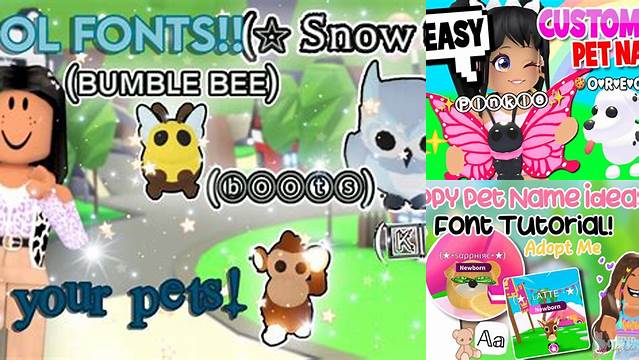
Cool Adopt Me Fonts For Roblox: A Guide For Players
Hey Roblox fans and Adopt Me enthusiasts! Ever wondered how to jazz up your game with some awesome fonts that perfectly capture the Adopt Me vibe? Well, you've come to the right place! Choosing the right font can make a huge difference in your Roblox creations, especially when you're aiming for that cute and playful aesthetic. In this guide, we'll dive into a treasure trove of Adopt Me fonts, explore why they matter, and show you how to use them to create a memorable experience. So, let’s get started and make your Roblox world even more amazing!
1. Understanding the Importance of Fonts in Roblox Games
Fonts, guys, are like the voice of your game. They communicate personality, style, and even the overall mood. Think about it: a scary horror game wouldn't use a bubbly, cartoonish font, right? Similarly, for a game as adorable as Adopt Me, the right font can amplify that cuteness factor tenfold. When you choose a great Adopt Me font, you're not just picking letters; you're selecting a visual element that can engage players, make text more readable, and add a professional touch to your game. In the world of Roblox, where customization is king, fonts are a key ingredient in crafting a unique and immersive experience. So, let's explore how we can make your game visually appealing with the perfect font!
2. Key Characteristics of Adopt Me Style Fonts
What exactly makes a font feel like it belongs in Adopt Me? It’s all about capturing that playful, friendly, and inviting vibe. Typically, Adopt Me style fonts are characterized by their rounded edges, soft curves, and a general sense of whimsy. They often have a handcrafted feel, as if they were drawn with love and care. Think bubbly letters, slightly irregular shapes, and a touch of childlike charm. These fonts avoid sharp angles and harsh lines, opting instead for a softer, more approachable look. The goal is to create text that feels welcoming and fun, perfectly complementing the game's adorable animals and cozy environments. When choosing a font, ask yourself: Does it make you smile? Does it feel like a hug in letter form? If the answer is yes, you might just have found your perfect Adopt Me font!
3. Top 5 Fonts That Perfectly Capture the Adopt Me Aesthetic
Alright, let's get to the good stuff! Here are my top 5 picks for fonts that nail that Adopt Me aesthetic, and trust me, they're awesome:
- Bubblegum Sans: This font is like a bouncy castle in text form. It's rounded, playful, and oh-so-cute. Perfect for dialogues and announcements!
- Luckiest Guy: With its bold, friendly letters, Luckiest Guy screams fun. It’s super readable and adds a touch of retro charm.
- Cherry Cream Soda: Imagine a sweet treat in font form. This one’s bubbly, quirky, and full of personality. Great for titles and headings!
- Patrick Hand: Named after the lovable starfish, this font has a handwritten feel that’s both charming and unique. It adds a personal touch to your game.
- Cute Font: Sometimes, the name says it all! This font is simply adorable, with its soft lines and playful curves. Perfect for anything and everything in Adopt Me.
These fonts are sure to bring your Roblox game to the next level of cuteness!
5. Using Fonts to Enhance UI Elements in Adopt Me
Using the right fonts can really elevate your UI elements in Adopt Me. Think about how your game's user interface (UI) contributes to the overall player experience. Clear, readable text is essential, but the font's style also plays a significant role. For instance, a bubbly font for chat bubbles can enhance the playful atmosphere, while a slightly bolder font for important notifications can grab players' attention. When designing your UI, consider the context of each text element. Use different fonts for headings, body text, and button labels to create a visual hierarchy. A consistent font choice throughout your UI will give your game a polished and professional look. Experiment with different sizes, colors, and styles to make your text stand out and match the game's aesthetic.
6. Font Pairing: Combining Different Fonts for Visual Appeal
Font pairing, guys, is like matchmaking for text! It's about finding the perfect combination of fonts that complement each other and create a harmonious visual experience in your Adopt Me game. Think of it as finding the peanut butter to your jelly. A general rule of thumb is to pair a display font (something bold and attention-grabbing) with a more readable sans-serif font for body text. For example, you might use “Cherry Cream Soda” for your game titles and “Patrick Hand” for dialogues. Avoid using too many different fonts, as it can make your UI look cluttered and confusing. Stick to two or three fonts max. Also, consider the contrast between the fonts. A bold, heavy font paired with a light, airy font can create a nice visual balance. Experiment and see what combinations feel right for your game's unique style!
7. Best Practices for Font Size and Readability
Readability, guys, is key! No matter how cute your font is, if players can't read it easily, it's not doing its job in Adopt Me. Font size plays a huge role here. Make sure your text is large enough to be seen clearly on different devices, but not so large that it becomes overwhelming. Test your game on various screens to ensure readability. Also, consider the contrast between your text and the background. Light text on a dark background or vice versa usually works best. Avoid using colors that are too similar, as this can strain the eyes. Another tip is to use a consistent font size for similar elements throughout your game. This creates a sense of visual consistency and makes it easier for players to navigate your UI. Remember, the goal is to make your text as accessible and enjoyable as possible!
8. Free vs. Premium Fonts: Which Option is Right for You?
When choosing fonts for your Adopt Me game, you’ll often encounter the age-old question: free or premium? Both options have their pros and cons, so let's break it down. Free fonts are awesome because, well, they're free! There are tons of great free fonts out there, and they're perfect for hobbyists or developers on a budget. However, free fonts may have limited character sets or licensing restrictions, so always check the fine print. Premium fonts, on the other hand, usually offer a wider range of styles, weights, and features. They often come with commercial licenses, making them a safer bet for professional projects. Premium fonts also tend to be more unique and polished, giving your game a high-quality feel. Ultimately, the best choice depends on your budget, project scope, and personal preferences. If you're just starting out, free fonts are a great way to experiment. But if you're serious about creating a standout game, investing in premium fonts might be worth it.
9. Licensing Considerations When Using Fonts in Roblox
Okay, let's talk about something super important but often overlooked: font licensing. When you're using fonts in your Adopt Me game, it's crucial to understand the terms of the license. Basically, a font license tells you what you can and can't do with the font. Some fonts are free for personal use but require a commercial license if you're using them in a game you plan to monetize. Other fonts have more restrictive licenses that prohibit embedding them in software or modifying the font files. Using a font without the proper license can lead to legal trouble, so it's always better to be safe than sorry. Before you use a font, check the license agreement. If you're unsure, reach out to the font designer or foundry for clarification. There are also plenty of websites that offer fonts with clear licensing information, making it easier to find the right fonts for your project.
10. Font Styles: Bold, Italic, and Underline in Roblox
Font styles like bold, italic, and underline can be your secret weapons for adding emphasis and visual variety to your text in your Adopt Me game. Bold text is perfect for highlighting key information, making headings pop, or drawing attention to important elements. Italic text can add a touch of elegance or be used for quotes or character thoughts. Underline, while less commonly used in modern UI design, can still be effective for hyperlinks or to emphasize a specific word or phrase. However, a word of caution: don't overdo it with font styles. Too much bolding or italicizing can make your text look cluttered and harder to read. Use these styles sparingly and strategically to enhance readability and create a visual hierarchy. Experiment with different combinations to see what works best for your game's aesthetic.
11. The Psychology of Fonts: How Fonts Affect Player Perception
Did you know that fonts can actually influence how players perceive your Adopt Me game? It's true! Fonts have a psychology all their own. A playful, rounded font can evoke feelings of warmth, friendliness, and fun, making players feel welcome and comfortable. A bolder, more modern font can convey a sense of excitement and innovation. Even the color of your text can impact player perception. Bright, vibrant colors can energize players, while softer, pastel shades can create a calming atmosphere. When choosing fonts, think about the emotions you want to evoke in your players. Consider your target audience and the overall tone of your game. By understanding the psychology of fonts, you can create a more engaging and immersive experience for your players.
12. Font Color and Contrast: Making Text Stand Out
Font color and contrast are your best friends when it comes to making text pop in your Adopt Me game. If your text blends into the background, it doesn't matter how cute your font is – players won't be able to read it! High contrast is key. Light text on a dark background or vice versa is a classic combination that works wonders. Avoid using colors that are too similar, as this can strain the eyes and make text difficult to decipher. Consider the color palette of your game when choosing font colors. You want your text to complement the overall aesthetic, not clash with it. Experiment with different colors and contrasts to see what works best. A little bit of color theory knowledge can go a long way in creating visually appealing text that stands out and enhances the player experience.
13. Using Custom Fonts for Game Logos and Titles
A killer game logo and title are essential for grabbing players' attention, and custom fonts can be your secret weapon. The font you choose for your logo and title sets the tone for your entire Adopt Me game. It's your first chance to make a lasting impression. Think about the message you want to convey. Do you want your game to feel playful and whimsical? Bold and adventurous? Choose a font that reflects that vibe. Custom fonts can add a unique touch that sets your game apart from the competition. Consider using a display font for your logo and title – something eye-catching and memorable. Pair it with a more readable font for the rest of your UI. A well-chosen font can make your logo and title instantly recognizable and create a strong brand identity for your game.
14. Font Effects: Shadows, Outlines, and Glows
Font effects like shadows, outlines, and glows can add an extra layer of polish and visual interest to your text in your Adopt Me game. A subtle shadow can make your text pop off the screen, adding depth and dimension. Outlines can improve readability, especially when your text is placed over a busy background. Glows can create a magical or ethereal effect, perfect for fantasy-themed games. However, like with font styles, it's easy to overdo font effects. Too many effects can make your text look cluttered and distracting. Use them sparingly and strategically to enhance, not overwhelm, your text. Experiment with different colors, sizes, and opacities to achieve the desired effect. A little bit of experimentation can go a long way in making your text look professional and visually appealing.
15. Font Animation: Adding Movement to Text Elements
Font animation can bring your text to life in your Adopt Me game, adding a dynamic and engaging element to your UI. Imagine text that fades in, slides across the screen, or bounces playfully. Animation can draw players' eyes to important messages, create a sense of excitement, or simply add a touch of fun. Roblox Studio offers several tools for animating text, including tweening and scripting. You can animate properties like position, rotation, scale, and color. Keep your animations subtle and purposeful. Overly flashy animations can be distracting and even annoying. Use animation to enhance the player experience, not to overwhelm it. Experiment with different animation styles and timings to see what works best for your game. A little bit of movement can go a long way in making your text more engaging.
16. Using Fonts to Create a Consistent Brand Identity
Your font choices are a crucial part of your Adopt Me game's brand identity. A consistent font can help players recognize your game instantly, creating a sense of familiarity and trust. Think of famous brands – they often have a signature font that's used across all their marketing materials. You can do the same for your game! Choose a font that reflects the personality and style of your game. Use it consistently in your logo, title, UI elements, and promotional materials. A consistent font will make your game look professional and polished. It will also help players connect with your brand on a deeper level. So, take the time to choose the right font and stick with it. It's an investment in your game's long-term success.
17. Fonts for Different Languages: Considerations for Global Players
If you want your Adopt Me game to appeal to a global audience, you need to consider fonts that support multiple languages. Not all fonts include characters for languages like Chinese, Japanese, or Korean. Using a font that only supports English can make your game unreadable for players who speak other languages. Look for Unicode fonts – these fonts include a wide range of characters from different languages. Test your game with different languages to ensure that the text displays correctly. You might also need to adjust font sizes and spacing to accommodate different character widths. Creating a multilingual game can be a lot of work, but it's worth it if you want to reach a wider audience. Choosing the right fonts is a crucial step in making your game accessible to players around the world.
18. Optimizing Fonts for Performance in Roblox
Performance is key in Roblox, and your font choices can actually impact your game's speed and smoothness. Complex fonts with lots of intricate details can be more resource-intensive, slowing down your game's frame rate. Simple, clean fonts are generally more performant. Consider using system fonts – these fonts are already installed on players' devices, so they don't need to be downloaded, saving bandwidth and loading time. If you're using custom fonts, optimize them by reducing the number of characters and simplifying the shapes. Test your game on different devices to ensure that your font choices aren't affecting performance. A smooth-running game is a happy game, so it's worth taking the time to optimize your fonts.
19. Font Alternatives: Exploring Different Options
Sometimes, the perfect font just isn't available, or it doesn't quite fit your Adopt Me game's aesthetic. That's where font alternatives come in! Exploring different options can help you find a font that's just as good, or even better, than your original choice. There are tons of font websites and libraries out there, so don't be afraid to browse and experiment. Look for fonts that have similar characteristics to your ideal font – maybe a similar style, weight, or spacing. Font pairing can also help you find alternatives. If you love a particular display font, try pairing it with a different sans-serif font. Don't settle for the first font you find. Take the time to explore different options and find the perfect font for your game.
20. Font Resources: Where to Find Great Fonts for Roblox
Finding amazing fonts for your Adopt Me Roblox game can feel like searching for buried treasure, but don't worry, I've got a map for you! There are tons of awesome resources out there where you can discover incredible fonts, both free and premium. Websites like Google Fonts, DaFont, and Font Squirrel offer a vast selection of free fonts, perfect for getting started. For premium fonts with commercial licenses, check out MyFonts, Adobe Fonts, and Creative Market. These sites offer a wider range of unique and professional fonts. Remember to always check the font license before using it in your game. Happy font hunting!
21. Creating Your Own Custom Font for Roblox
Want to take your Adopt Me game's font game to the next level? Why not create your own custom font? Designing your own font can give your game a truly unique and personal touch. There are several font creation tools available, both free and paid, that make the process surprisingly accessible. FontForge is a popular free option, while Glyphs and FontLab are powerful premium tools. Start by sketching out your letters on paper, then use the software to digitize them. Experiment with different styles and weights. Creating a font takes time and effort, but the result is a one-of-a-kind asset that can elevate your game's branding and visual identity.
22. Font Tools and Software for Roblox Developers
For Roblox developers diving deep into font customization, having the right tools can make all the difference. Software like FontForge (free and open-source) is fantastic for creating and editing fonts. For more advanced options, Glyphs and FontLab offer powerful features for professional font design. In Roblox Studio, you can utilize properties like TextScaled to automatically adjust font sizes, ensuring readability across different screen sizes. Additionally, plugins like the TextService API can help manage text rendering and localization, especially crucial for games targeting a global audience. These tools empower you to fine-tune the visual aspects of your text, ensuring they perfectly match your game's aesthetic and enhance the player experience.
23. The Future of Fonts in Roblox Game Development
The future of fonts in Roblox game development is looking brighter than ever! With Roblox continuously updating its engine, we can expect even more flexibility and customization options for text rendering. Imagine dynamic fonts that change based on in-game events, or interactive fonts that react to player input. Virtual Reality (VR) and Augmented Reality (AR) could also play a role, necessitating fonts that are easily readable in 3D environments. Moreover, AI-driven tools might soon assist in font selection and pairing, making the design process more efficient. As Roblox evolves, fonts will undoubtedly become an even more integral part of the gaming experience, pushing the boundaries of visual creativity.
24. Font Accessibility: Ensuring Text is Readable for All Players
Ensuring font accessibility is crucial for making your Adopt Me game enjoyable for everyone. This means choosing fonts that are easy to read for players with visual impairments or reading difficulties. Opt for clear, sans-serif fonts with good spacing and avoid overly stylized or decorative typefaces. Providing options to adjust font size and color contrast can also significantly improve readability. Consider adding a text-to-speech feature for players who prefer audio narration. By prioritizing accessibility, you create a more inclusive gaming environment, allowing more people to appreciate the hard work you’ve put into your game.
25. Font Inspiration: Analyzing Fonts in Popular Roblox Games
Looking for font inspiration for your Adopt Me game? One of the best ways to get ideas is by analyzing the fonts used in popular Roblox games. Take note of the typefaces used in the UI, dialogue boxes, and environmental text. What fonts evoke the game's overall tone and style? Are they playful, futuristic, or classic? Consider why those fonts were chosen and how they contribute to the player experience. By dissecting the font choices of successful games, you can gain valuable insights and spark creativity for your own projects. It’s like getting a sneak peek into the font-thinking process of top developers!
26. Font Customization: Modifying Existing Fonts for Unique Look
If you're feeling adventurous, font customization can be a fantastic way to create a truly unique look for your Adopt Me game. Instead of starting from scratch, you can modify existing fonts using font editing software. This could involve adjusting the letter shapes, adding custom glyphs, or altering the spacing and kerning. However, be mindful of font licenses; some may restrict modifications. Font customization allows you to tailor a typeface perfectly to your game's aesthetic, giving it a distinct personality. It’s like giving an old font a stylish makeover, making it fresh and relevant for your game.
27. Font Kerning and Spacing: Fine-Tuning Text Appearance
Kerning and spacing are the unsung heroes of typography, playing a significant role in the overall appearance and readability of your text in your Adopt Me game. Kerning refers to the adjustment of space between individual letter pairs, while spacing (or tracking) adjusts the space uniformly across all letters in a word or phrase. Proper kerning and spacing ensure that text looks balanced and harmonious. Poor kerning can lead to letters appearing too close or too far apart, making text look awkward and difficult to read. Fine-tuning these details can elevate the professionalism of your game's UI and enhance the player experience. It's all about making sure each letter gets along with its neighbors!
28. Font Caching: Improving Load Times in Roblox Games
Font caching is a technique that can significantly improve load times in your Roblox Adopt Me game, ensuring a smoother experience for players. When a player joins your game, the required fonts need to be loaded. If these fonts are not cached, they will be downloaded every time, leading to longer load times. By implementing font caching, you store the font files locally on the player's device, so they can be quickly accessed in subsequent sessions. This not only speeds up loading but also reduces bandwidth usage. It's a behind-the-scenes optimization that can make a noticeable difference in player satisfaction.
29. Font Fallbacks: Handling Missing Fonts Gracefully
Font fallbacks are a crucial strategy for ensuring your Adopt Me game displays correctly, even if a player doesn't have a specific font installed on their device. A font fallback system defines alternative fonts to use if the primary font is unavailable. This prevents text from appearing as generic placeholders or garbled characters. Typically, you'd set a fallback to a common, system-default font like Arial or Times New Roman. In Roblox, you can configure font fallbacks in your game's settings or script them for more dynamic control. It’s like having a backup plan for your text, guaranteeing a consistent visual experience for all players.
30. Font Testing: Ensuring Readability Across Devices
Font testing is the final, but essential step in ensuring your Adopt Me game's text is readable and visually appealing on a variety of devices. Before releasing your game, it’s crucial to test your font choices on different screen sizes, resolutions, and operating systems. This includes mobile devices, tablets, and desktop computers. Check for issues like text overlapping, poor contrast, or fonts that appear too small or blurry. Roblox Studio’s device emulation tools can be invaluable for this process. By thoroughly testing your fonts, you can catch and fix any potential readability problems, providing a polished and enjoyable gaming experience for all players. It’s like giving your fonts a final exam to make sure they’re ready for the real world!